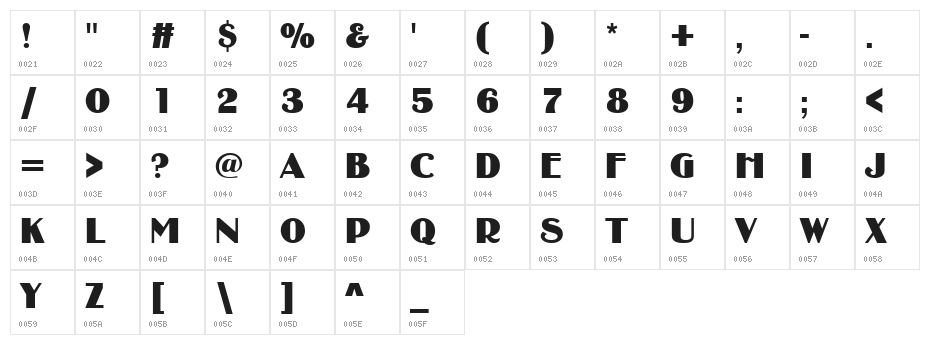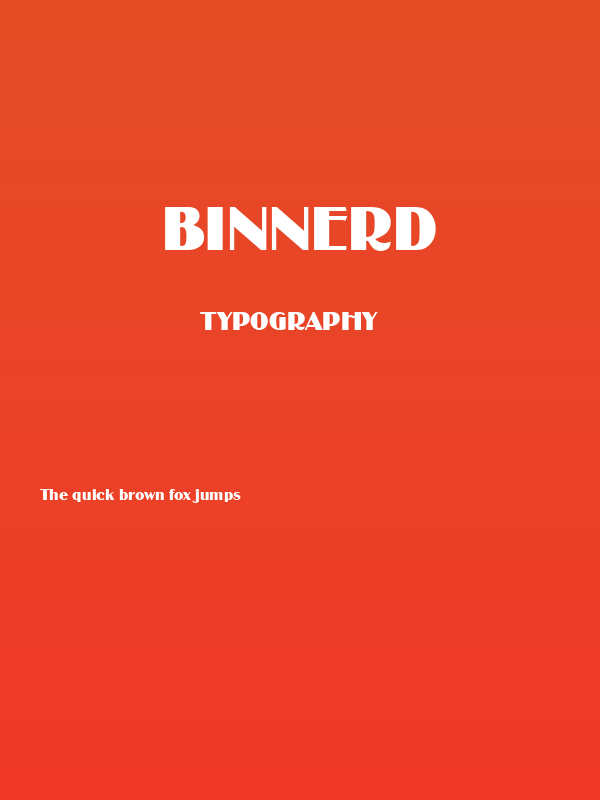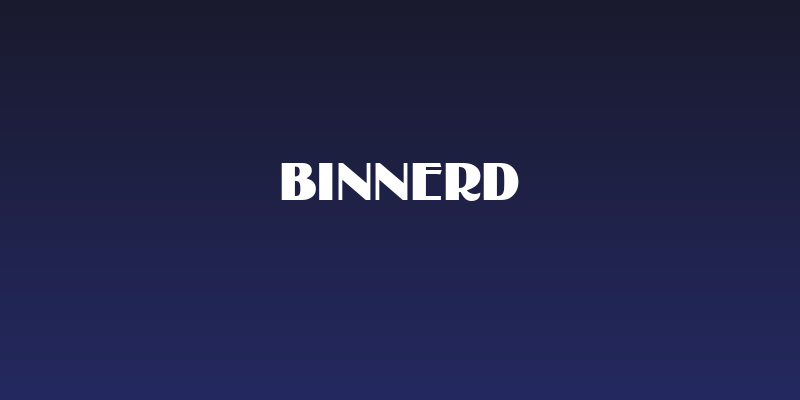
BinnerD Font
BinnerD Description
This font features bold, dramatic strokes with a strong presence, making it ideal for impactful headlines and attention-grabbing designs. The uppercase letters are characterized by their thick, uniform lines and subtle serifs, giving them a classic yet modern feel. The lowercase letters maintain the boldness of the uppercase, with slightly rounded edges that add a touch of softness to the overall appearance. The numerals are equally bold, ensuring consistency across all characters. Special characters are designed with the same attention to detail, providing a cohesive look throughout. The font's high contrast between thick and thin strokes enhances its readability and visual appeal.
| Proposed Projects | Ideal for branding, poster design, magazine covers, and any project requiring a strong visual impact. |